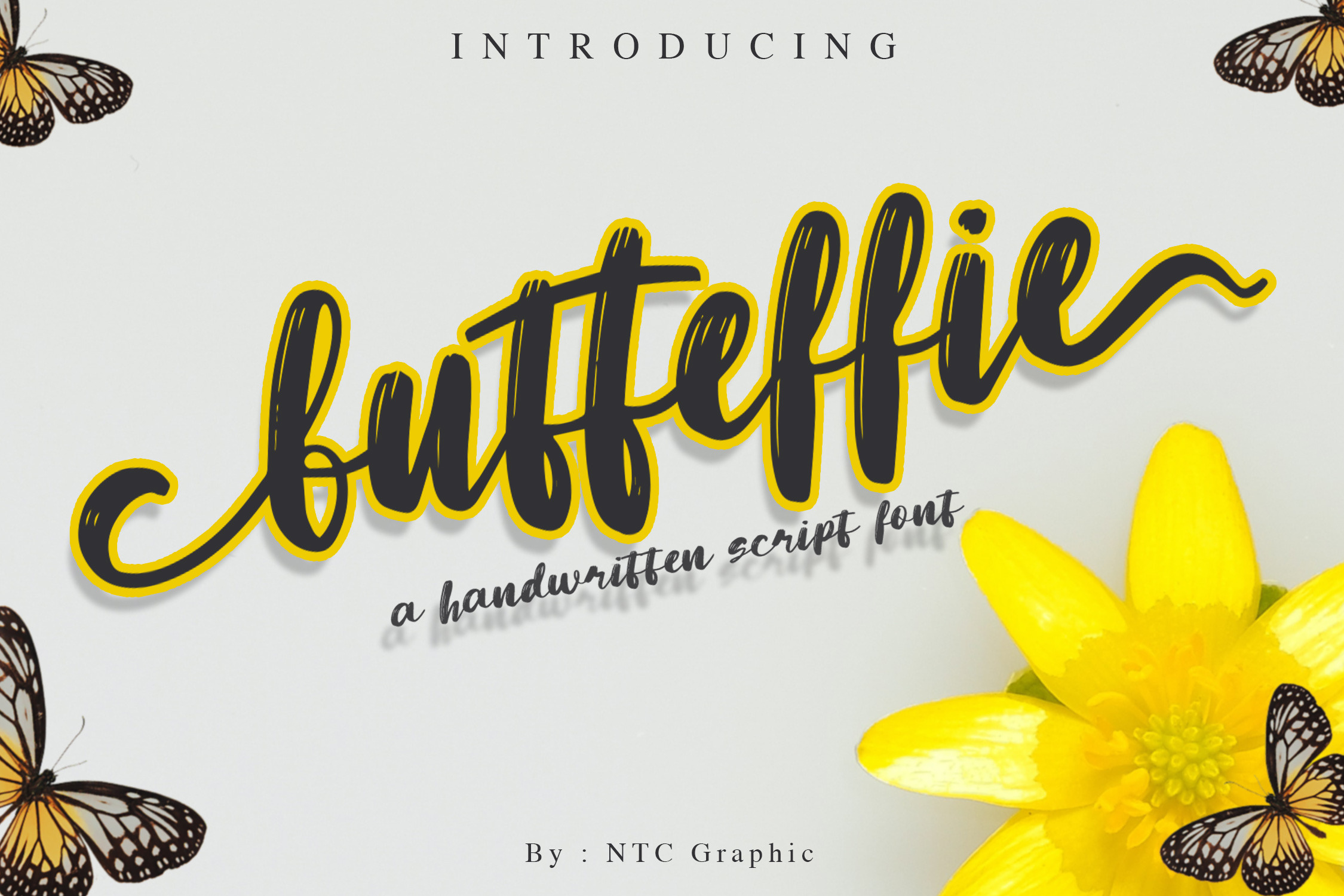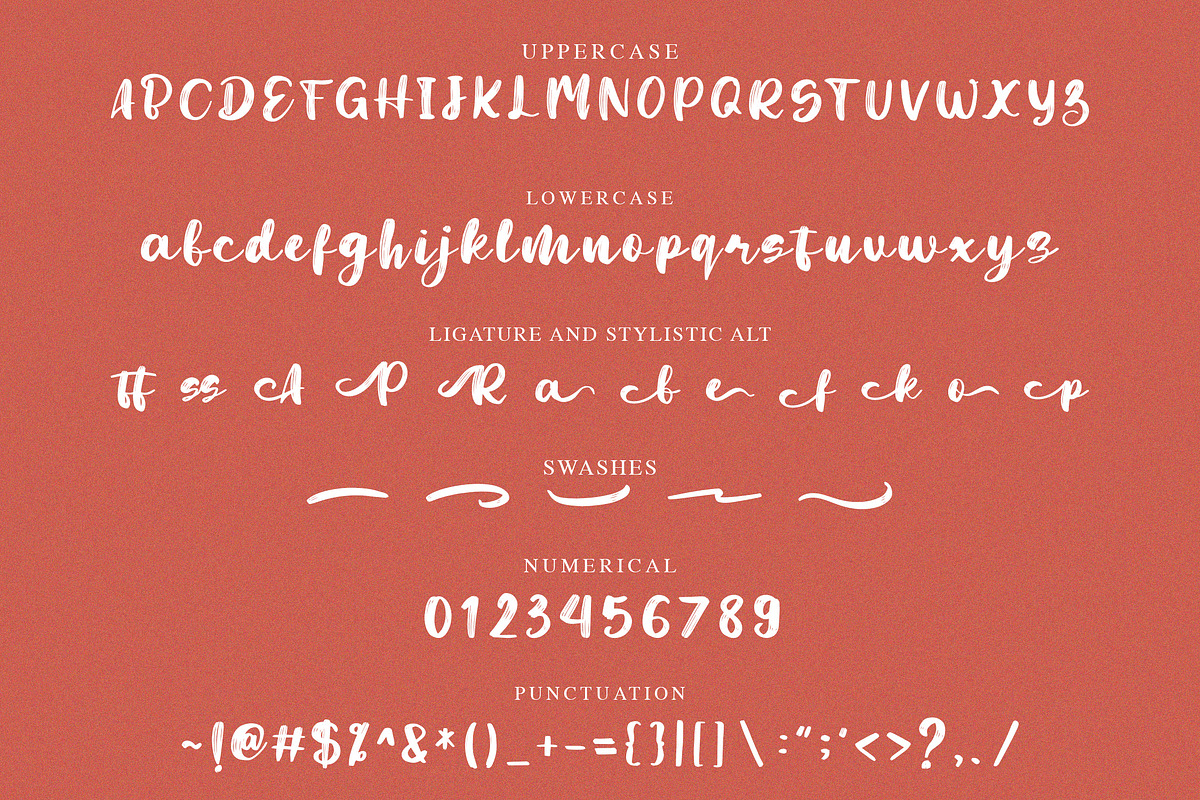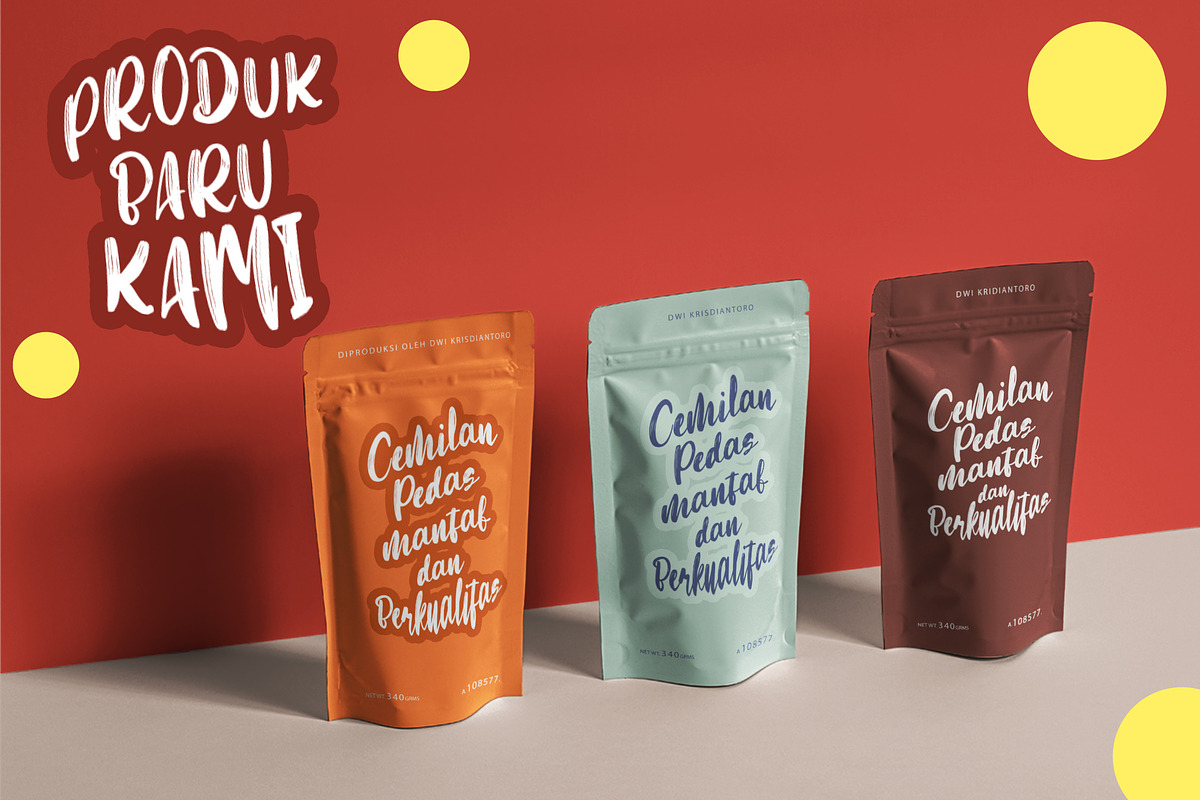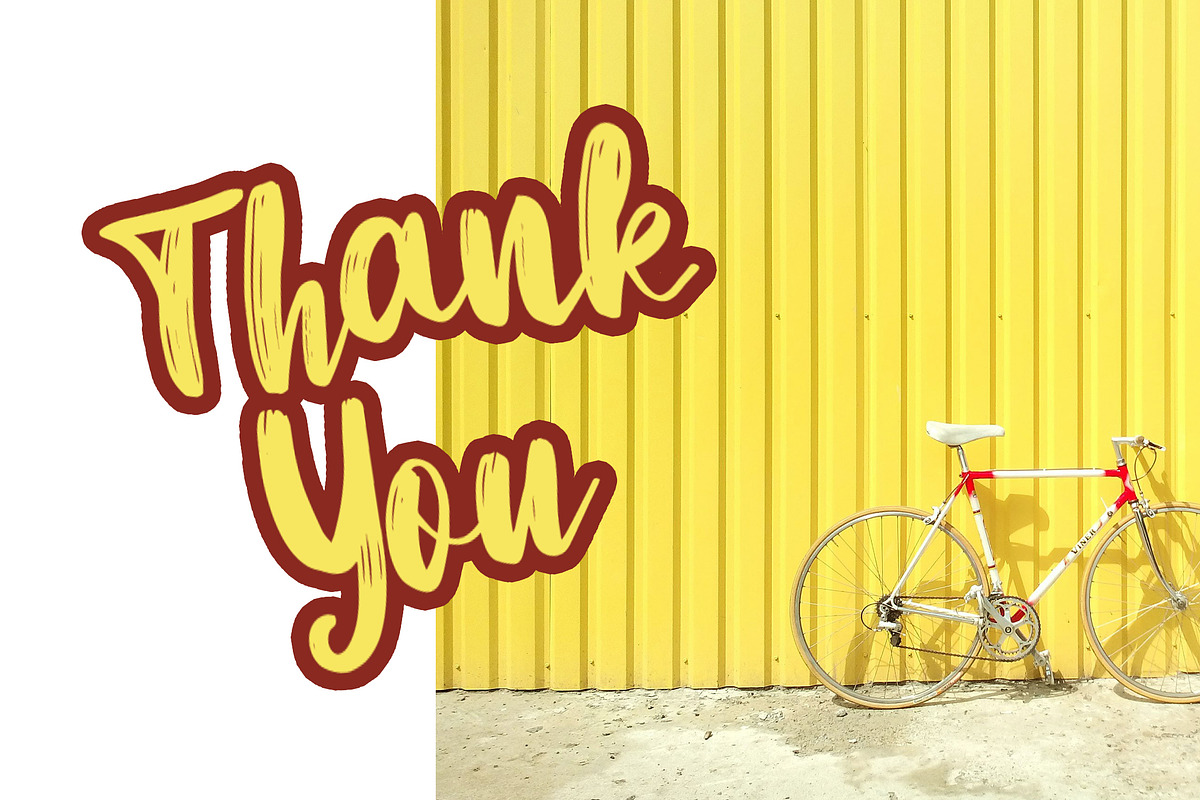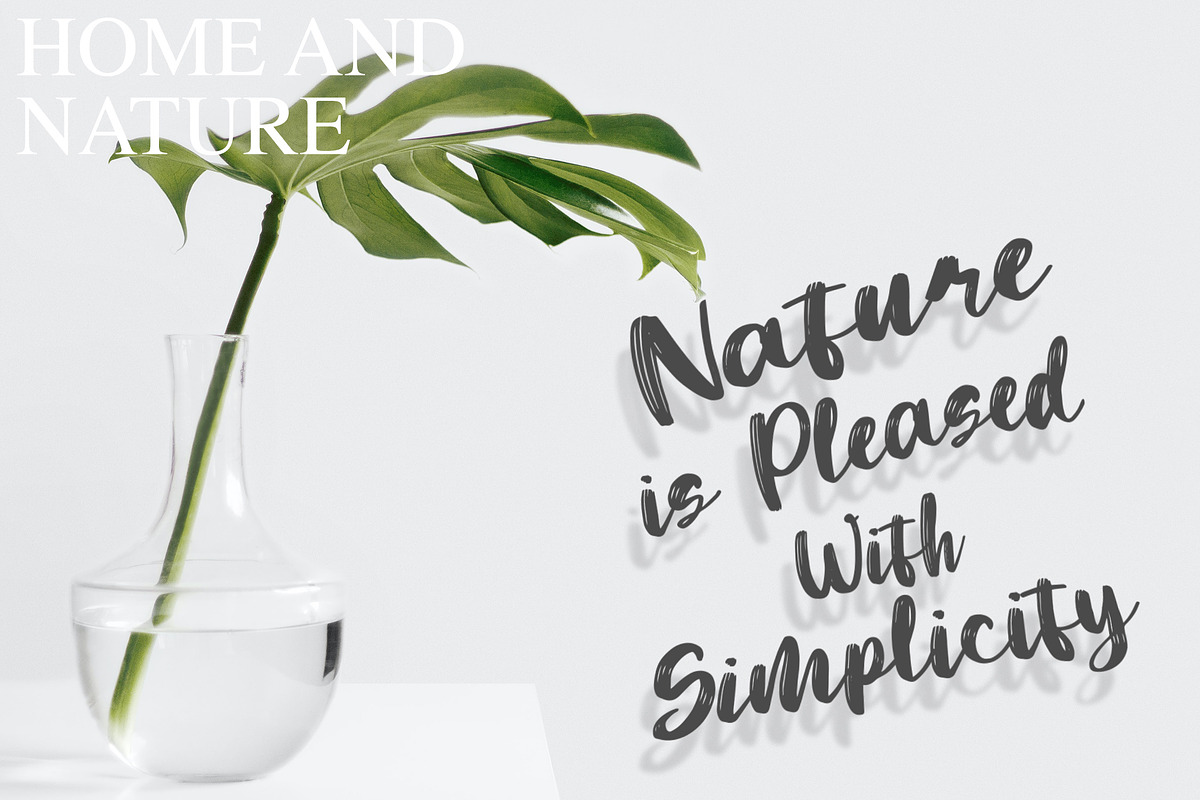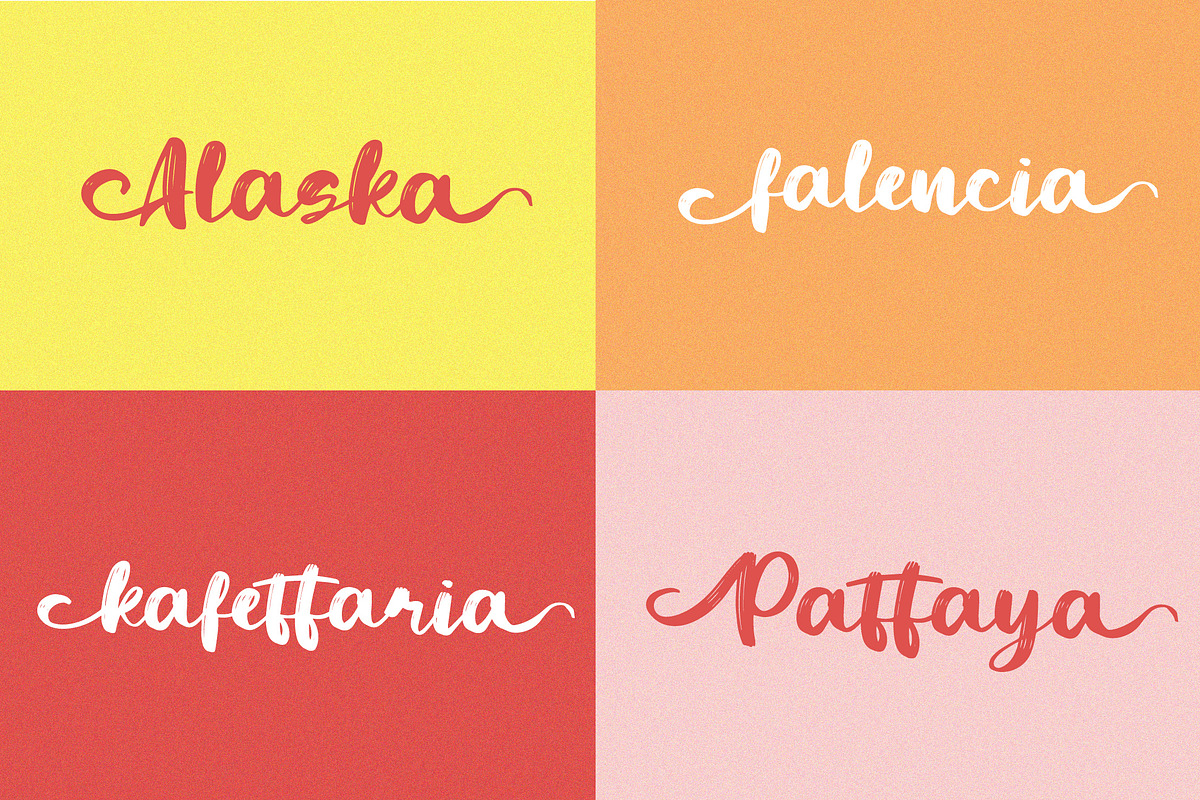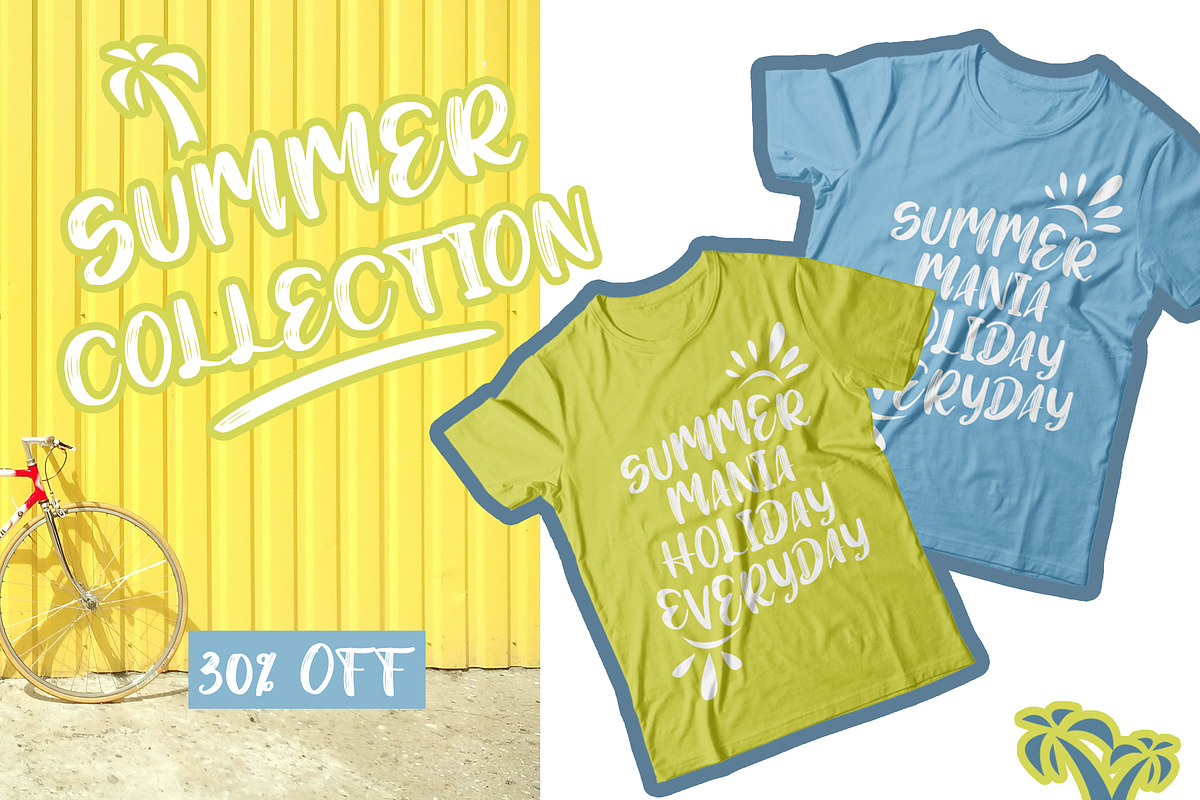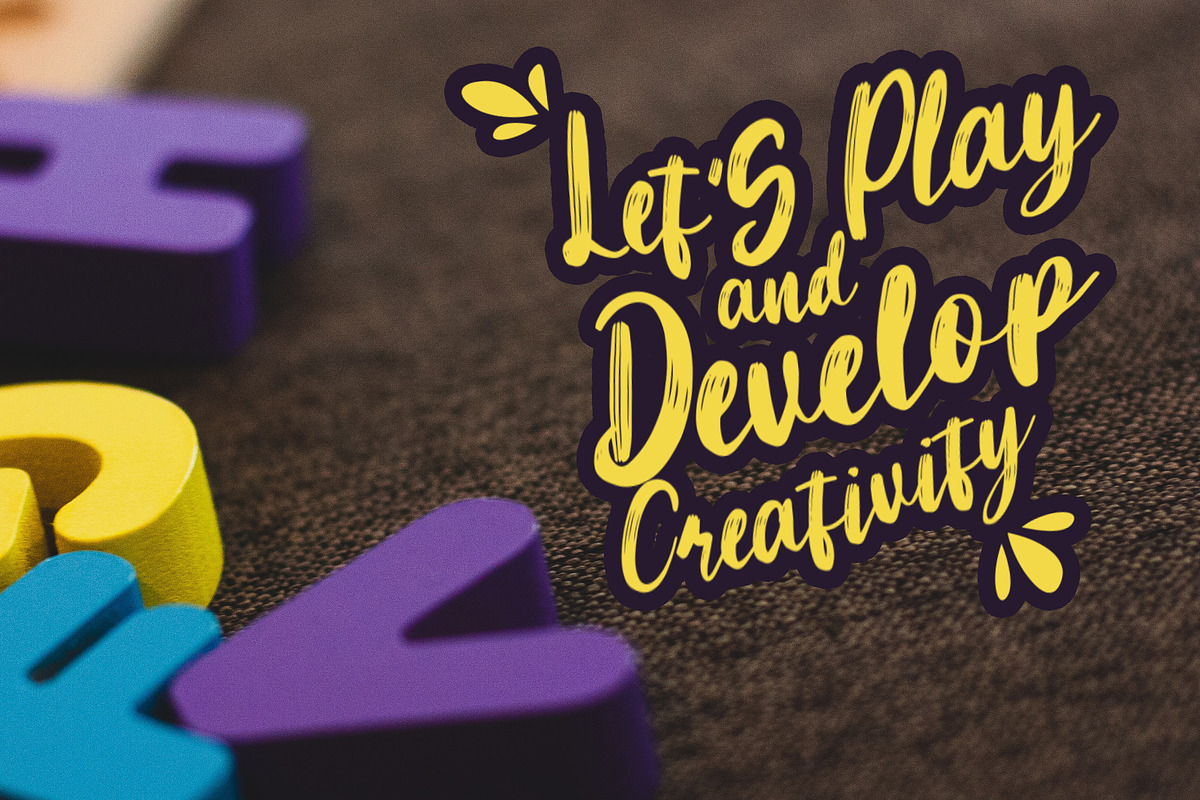
Butteffie - Script Font
Butteffie is a beautiful script font with brush style. Is a font style that is made with scratches and curvature shapes font characters are very beautiful. Can be applied to support the graphic appearance of the product to be more attractive and unique. This font is suitable for making previews and covers, logo designs, shirt designs, and other graphic needs. Made with hand scratches directly and then processed into font processing software.
Butteffie font with uppercase characters A-Z, lowercase characters a-z, Numerical character, Punctuation, Swashes, Stylistic alternate and Ligature characters that enhance this font shape.
-Ligature
-Stylistic Alternate
-Swashes